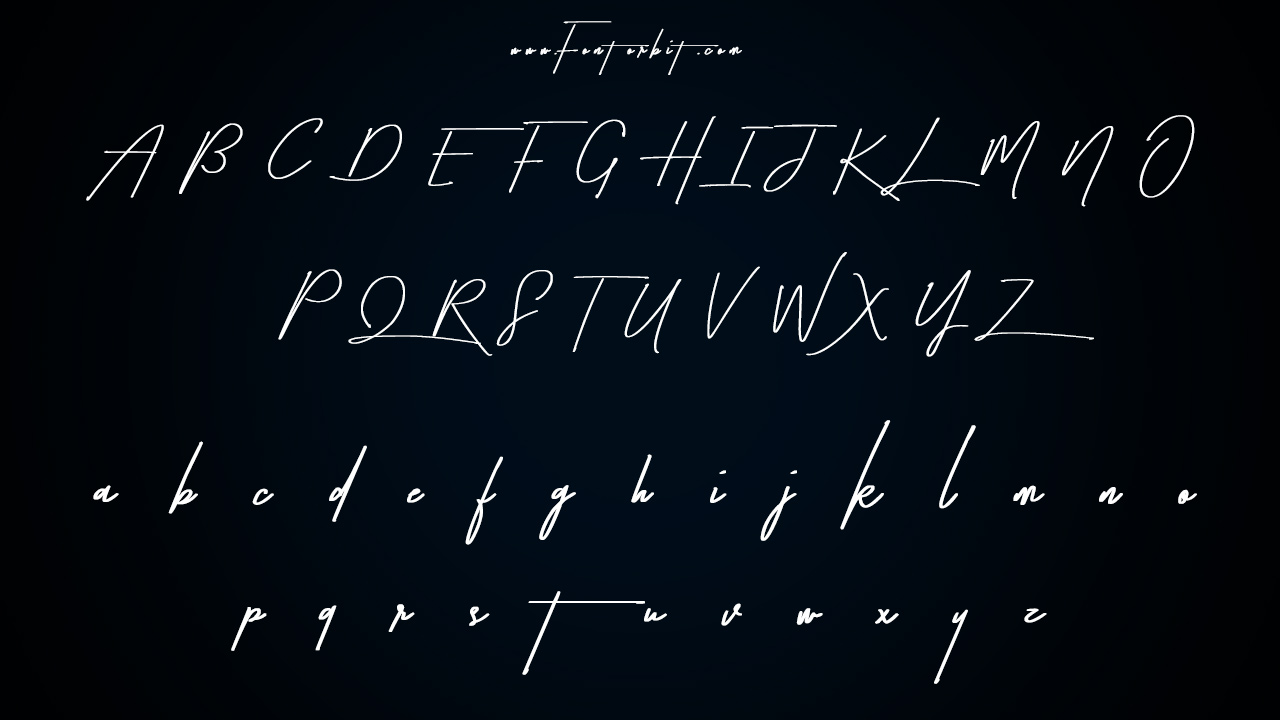
Taken By Vultures Font is a unique handwritten typeface that adds a touch of charm and personality to any design project. Designed by The Branded Quotes, Taken By Vultures was crafted to offer a distinctive handwritten style that enhances various creative projects.
The Taken By Vultures Font Family
Taken By Vultures Font includes a comprehensive set of glyphs, featuring uppercase and lowercase letters, numerals, punctuation, and a variety of special characters. With its distinctive handwritten style, this font is perfect for projects that require a personal and artistic touch.
Taken By Vultures Font is ideal for various creative projects where a handwritten aesthetic is desired. Its unique style makes it suitable for:
- logos
- invitation cards
- flyers
- product designs
- presentations
- quotations
- covers
- posters
- wedding cards
- photography
- branding
Taken By Vultures Font is a versatile and charming handwritten typeface that can elevate a variety of design projects. Its unique style and comprehensive set of glyphs make it an excellent choice for personal and creative use.
1.How To Use Taken By Vultures Font For Branding?
Incorporate Taken By Vultures’ handwritten style into your logo, business cards, and promotional materials to create a memorable and personal brand identity.
2.How To Customize Taken By Vultures Font For A Unique Look?
Use font editing software like Glyphs or FontForge to modify glyphs, adjust letterforms, or add custom elements to create a unique version of Taken By Vultures.
3.What Is The History Of Taken By Vultures Font?
Designed by The Branded Quotes, Taken By Vultures was crafted to offer a distinctive handwritten style that enhances various creative projects.
4.How To Create A Logo Using Taken By Vultures Font?
Incorporate Taken By Vultures into your logo design by pairing it with complementary fonts or graphics. Use design software like Adobe Illustrator to refine and adjust the font elements.
5.What Are The Best Design Projects For Taken By Vultures Font?
Ideal for invitations, branding materials, social media graphics, and any project that benefits from a personal and artistic touch.